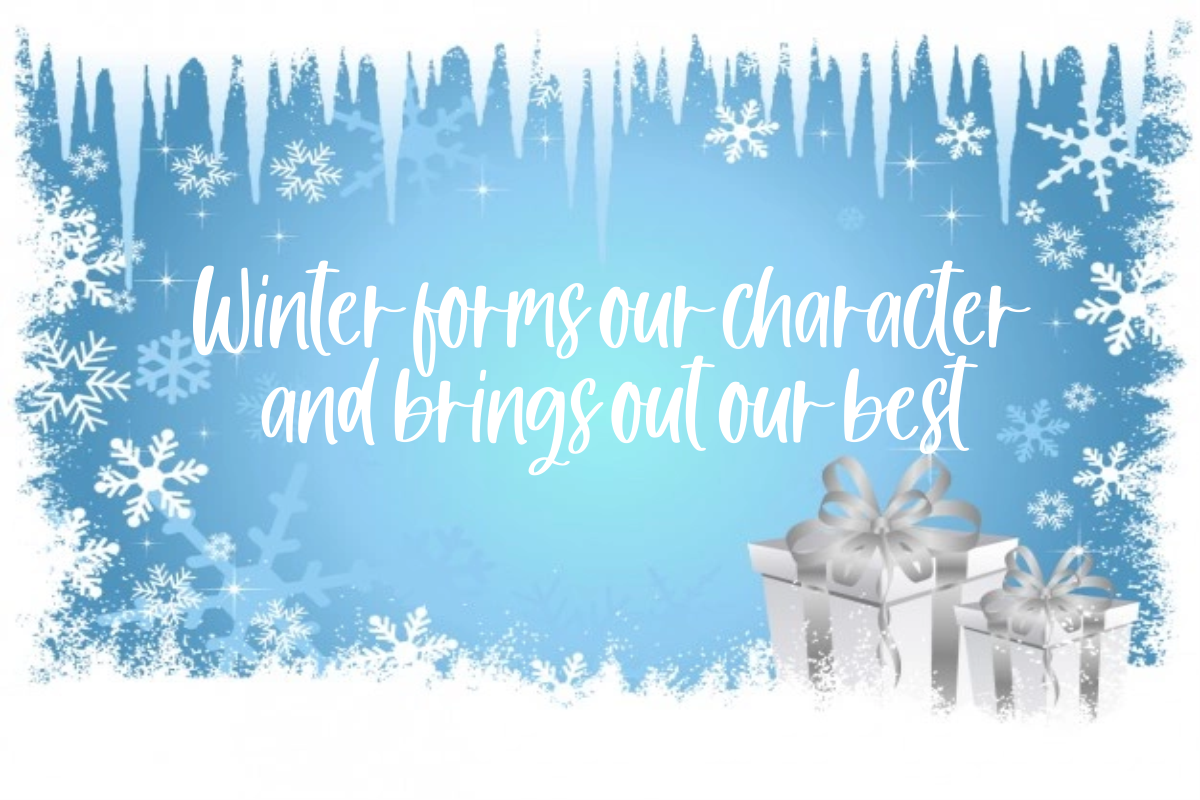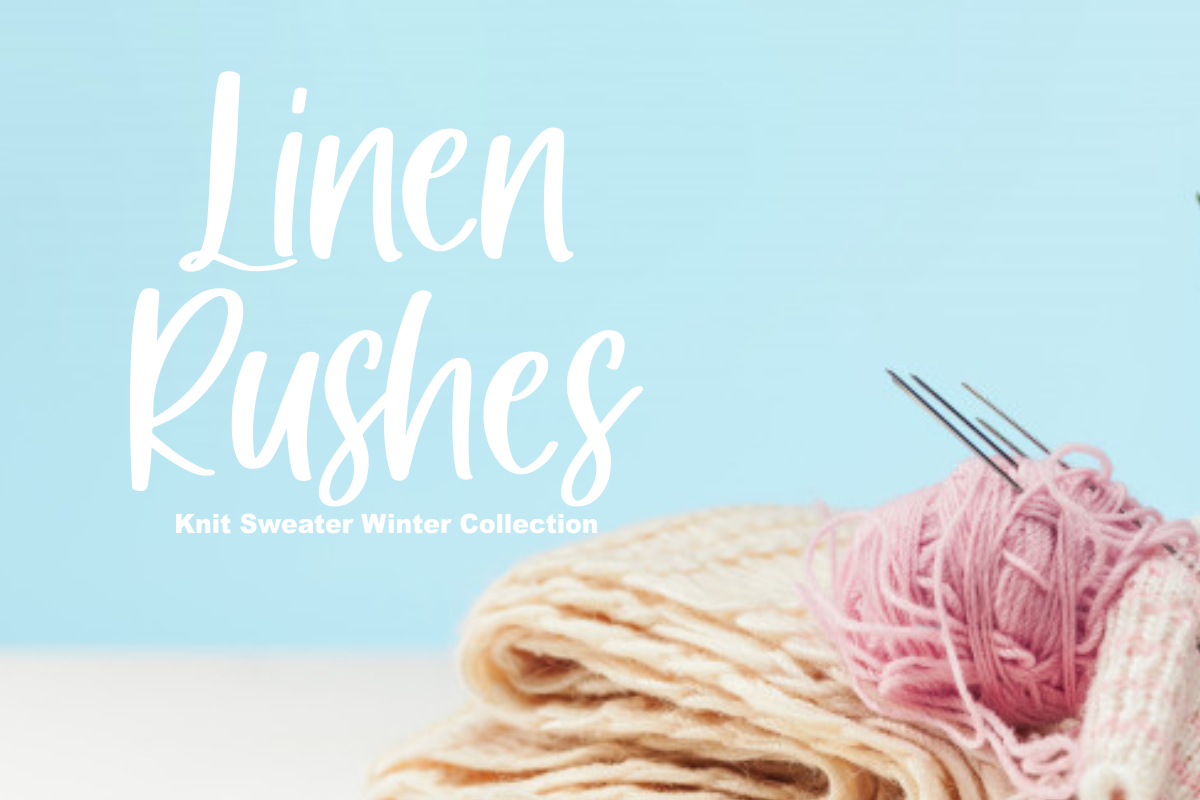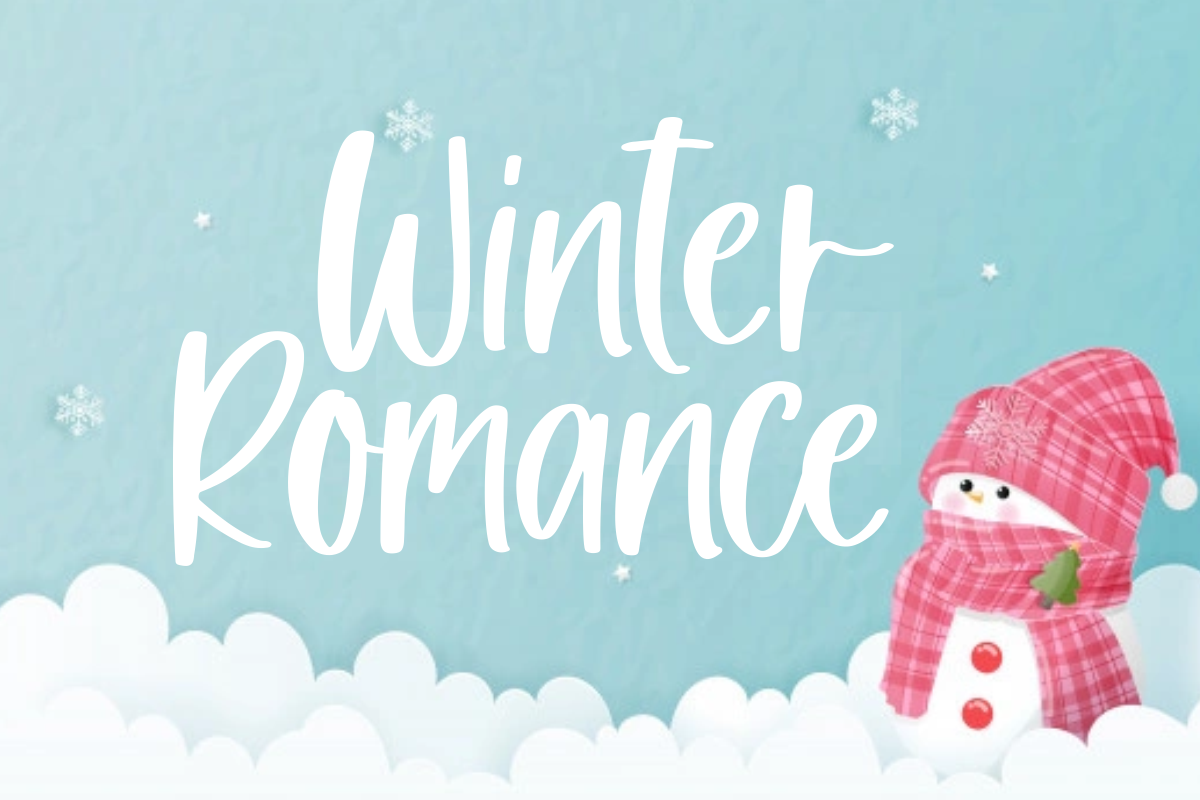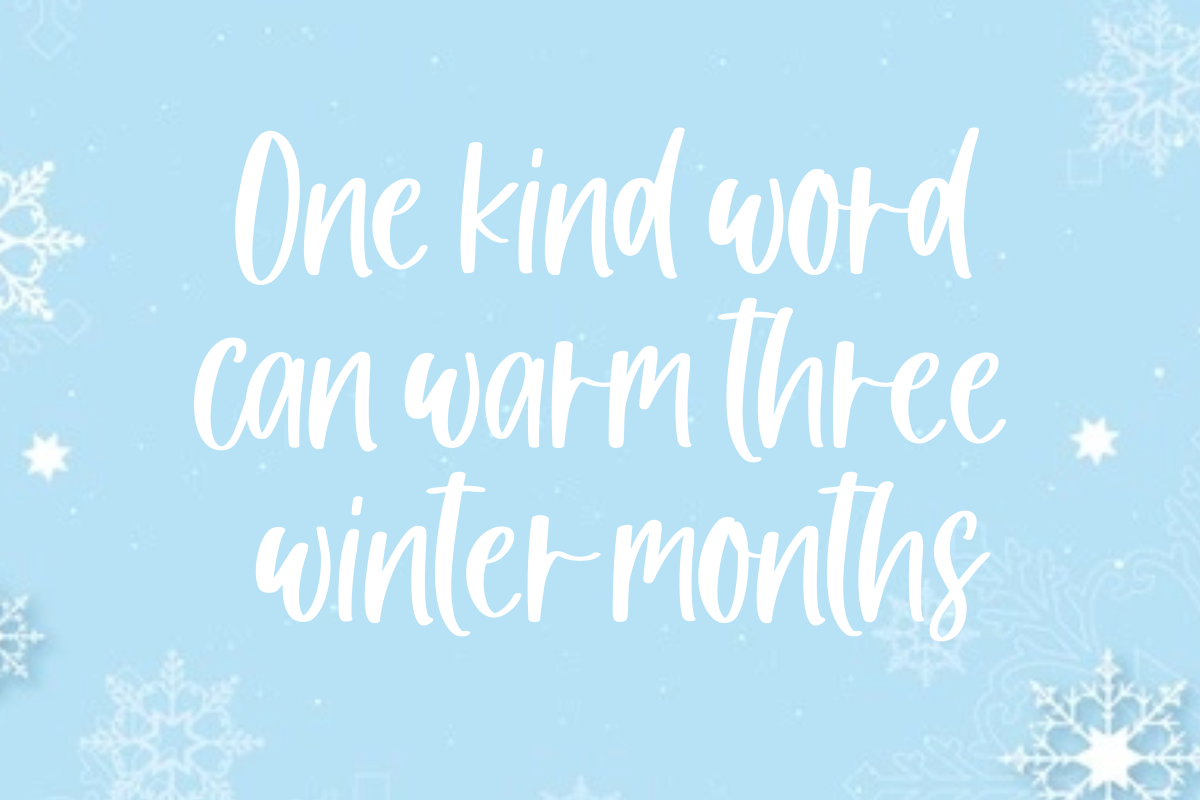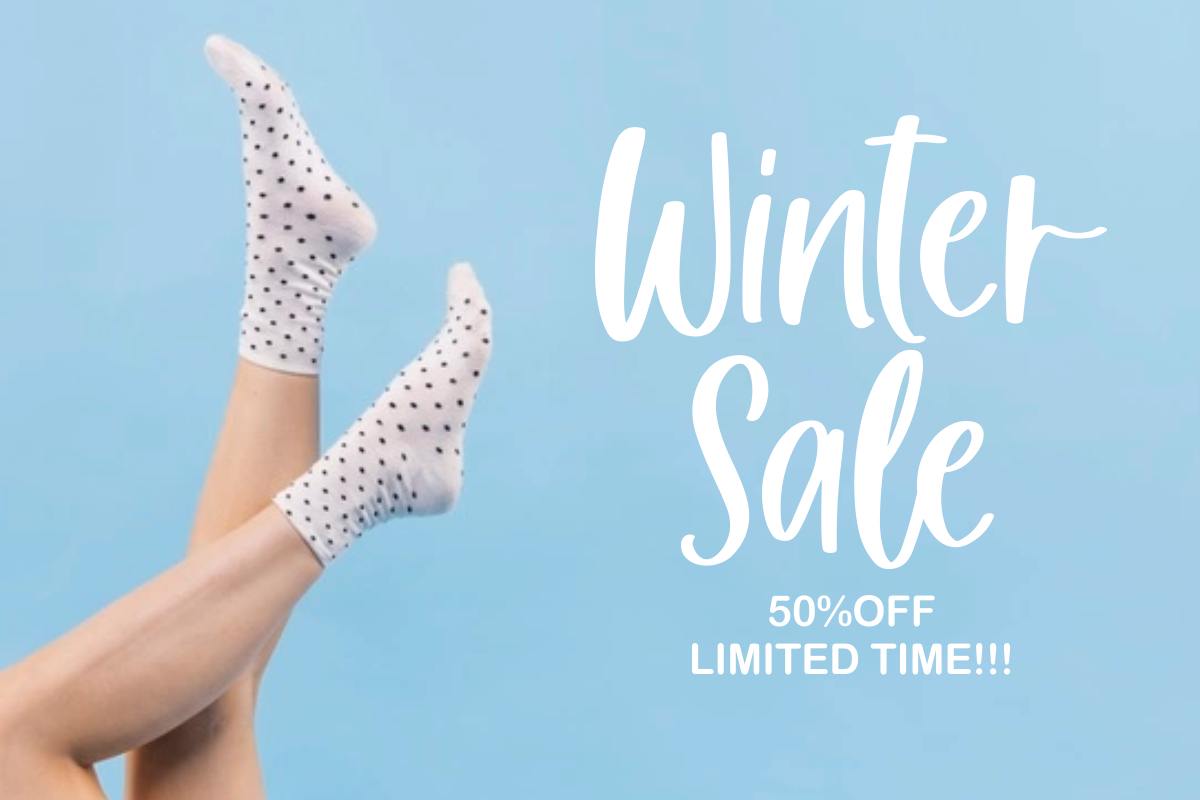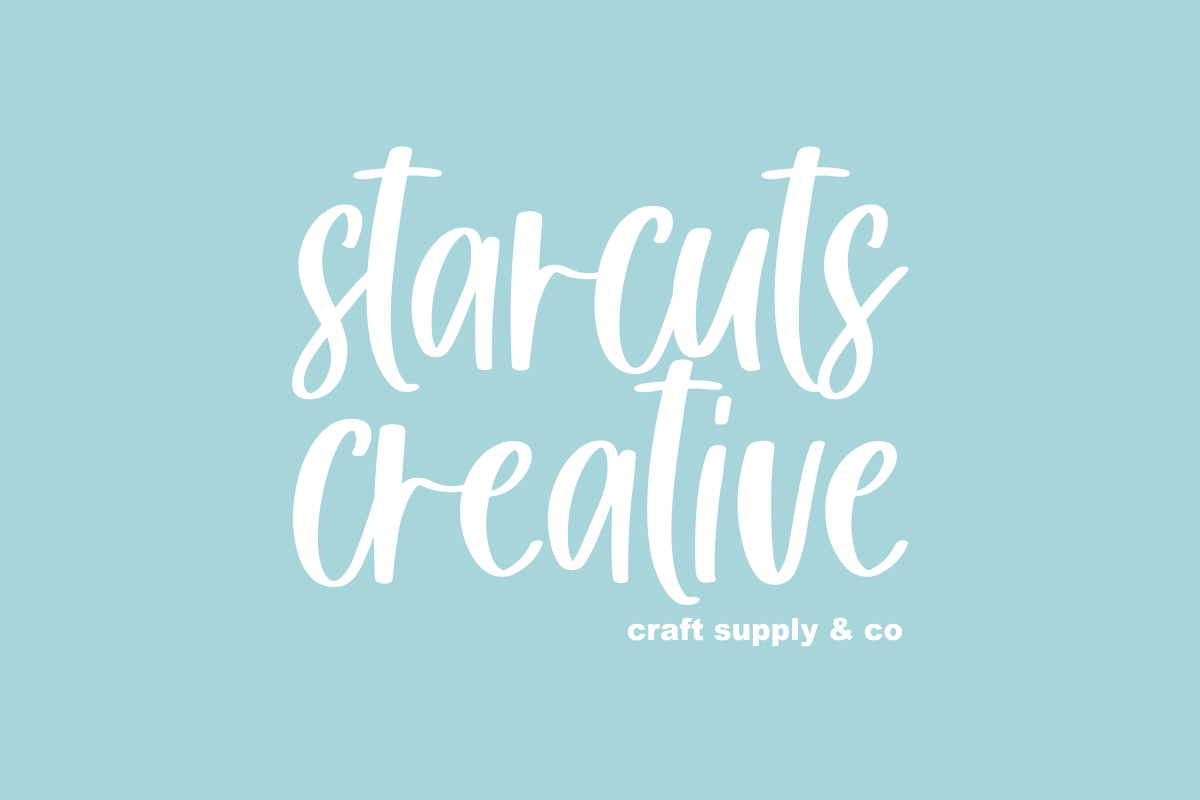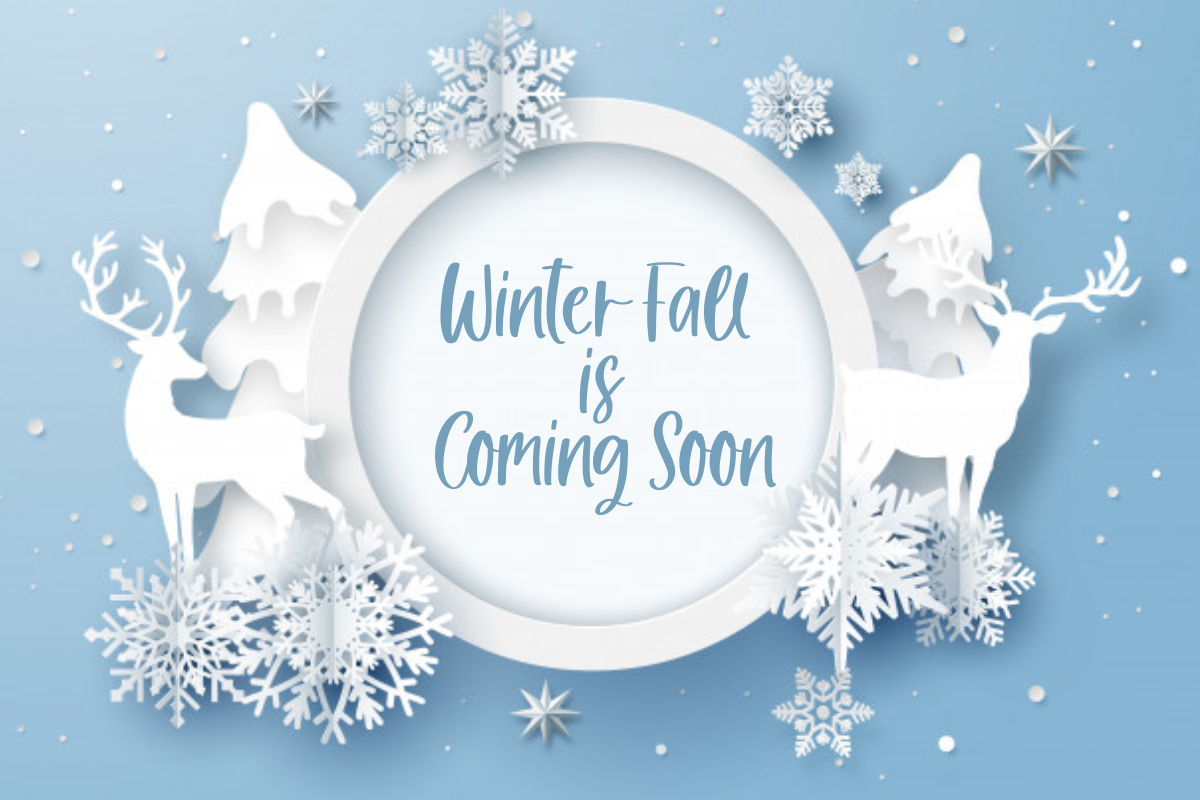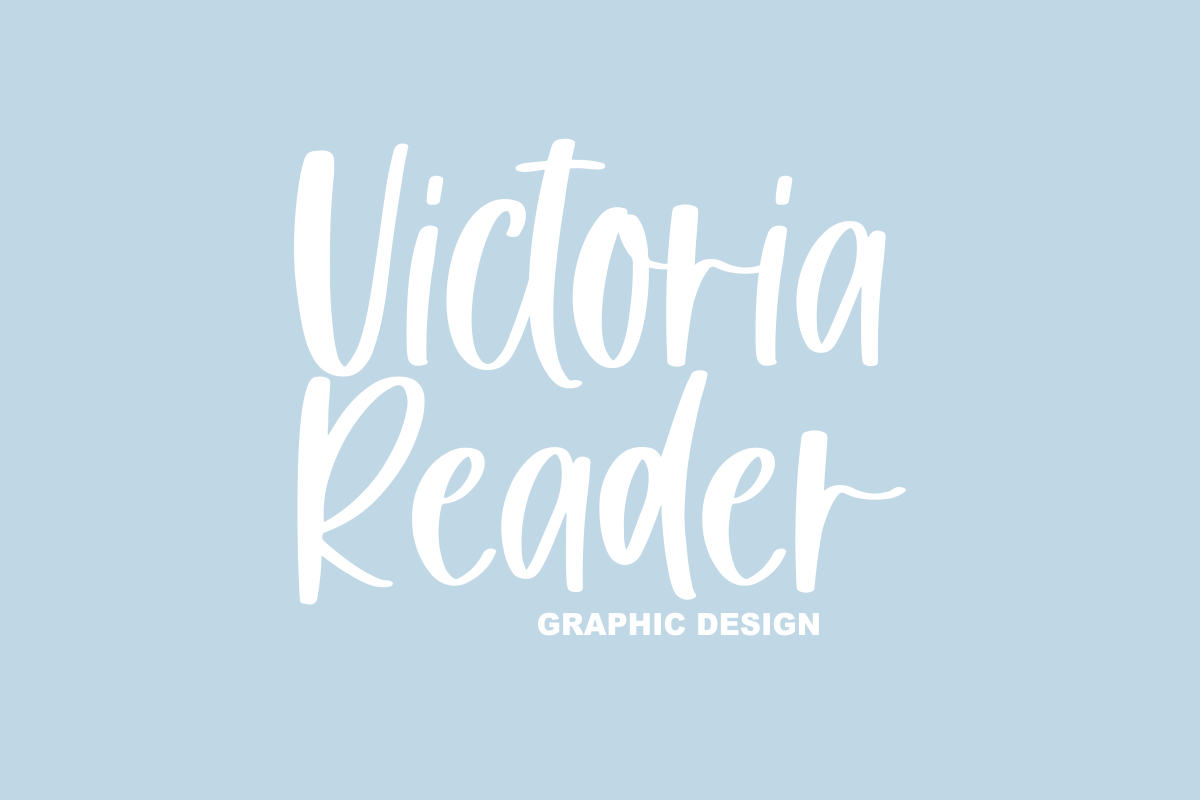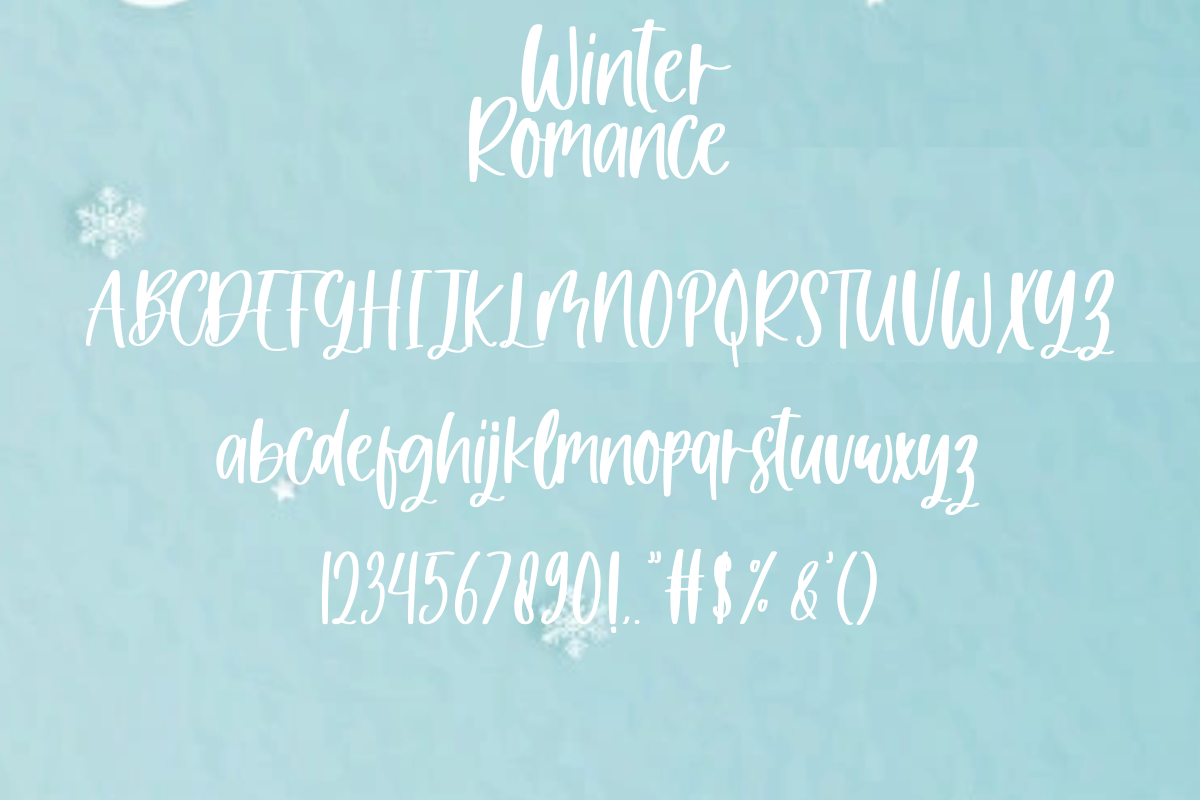
Winter Romance - Handwritten Font
Winter Romance – is a modern handwritten. This font is made in a modern style with elegantly, very casual, and suitable for your various design needs I’tsPerfect for logo, branding, title, social media posts, advertisements, product packaging, product designs, label, photography, watermark, special event, magazine, web design, etc.
Winter Romance ( Uppercase, Lowercase ), multilingual support, If you have any questions please don’t hesitate to contact me